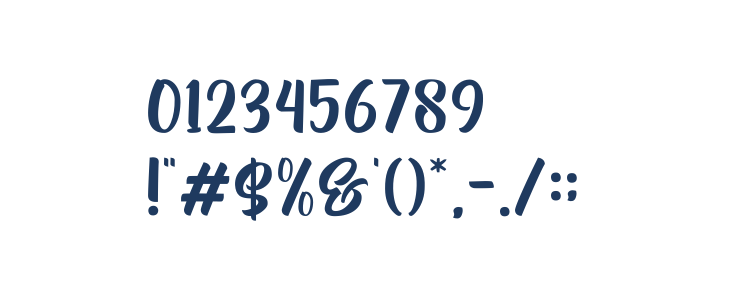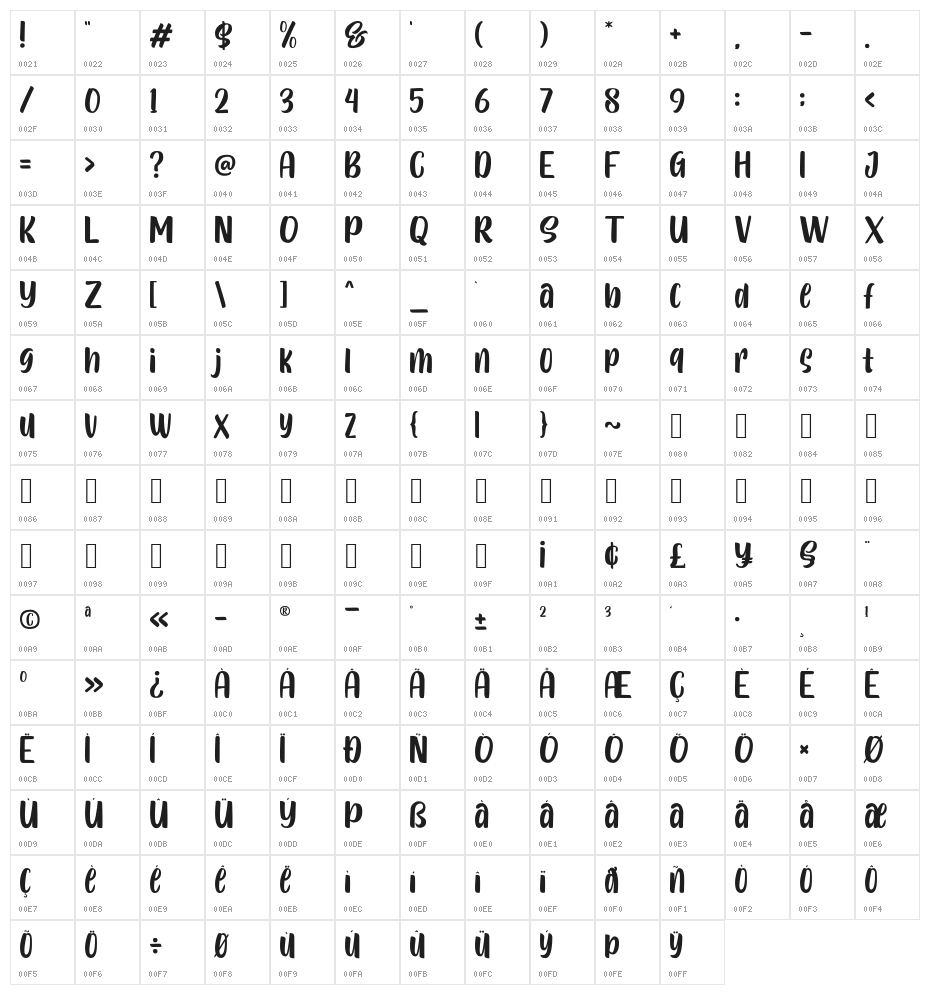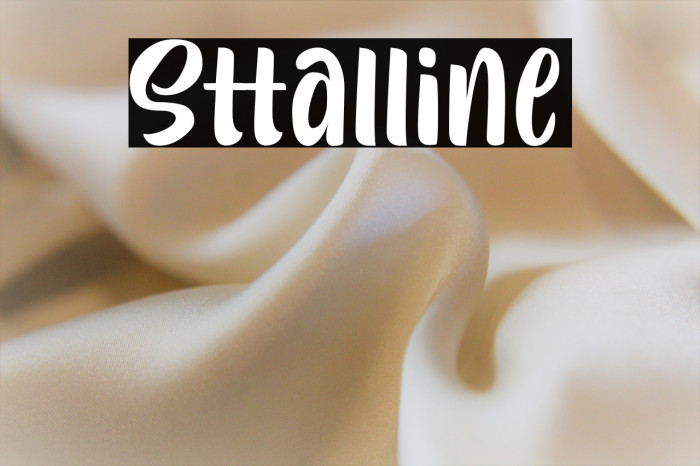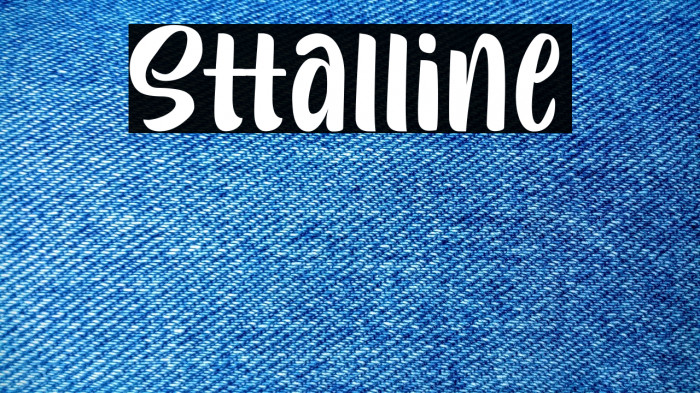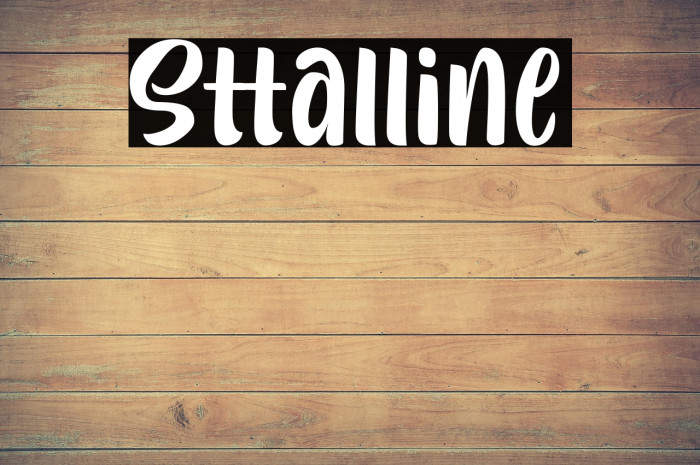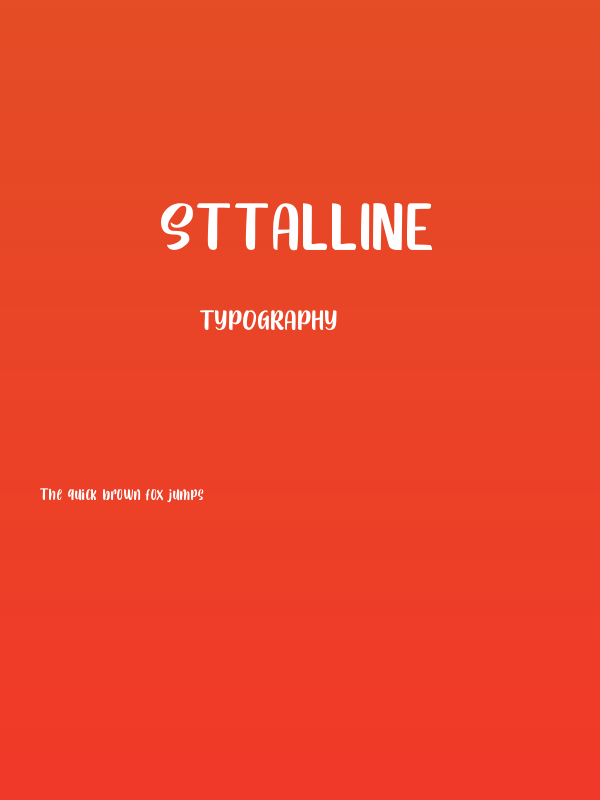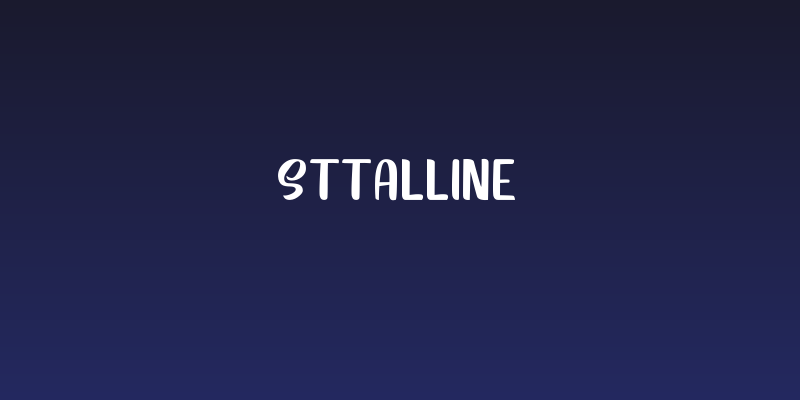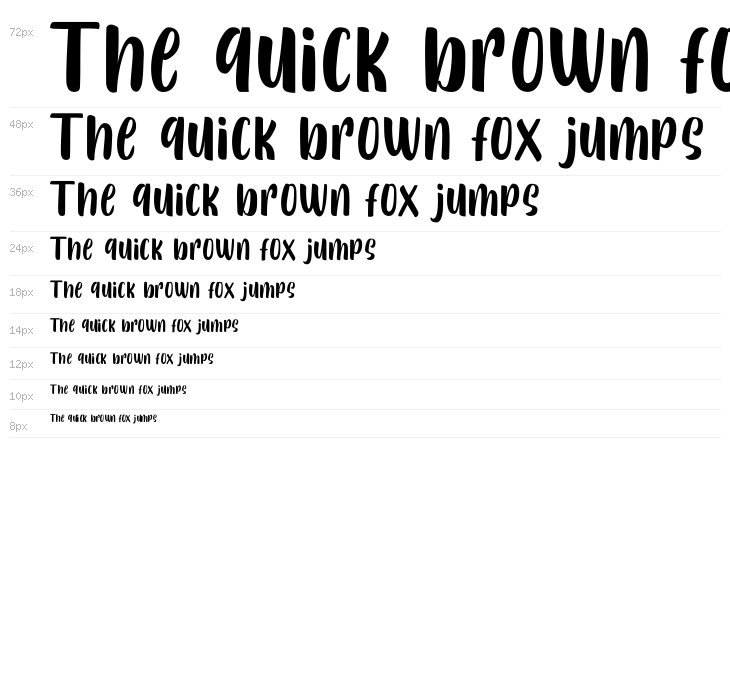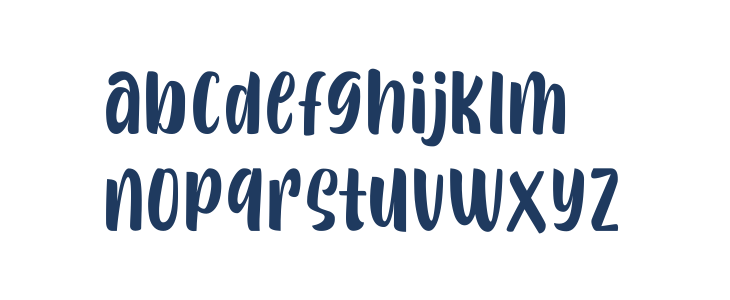
Sttalline Font
Sttalline Description
This font features a playful and bold handwritten style with smooth, rounded edges. The characters are slightly condensed, giving it a compact appearance while maintaining legibility. The uppercase and lowercase letters are consistent in their flowing, cursive-like design, which adds a whimsical touch. The numerals and special characters are crafted with the same playful aesthetic, making them suitable for creative projects. The font's bold strokes and uniform thickness provide a strong visual impact, making it ideal for eye-catching designs.